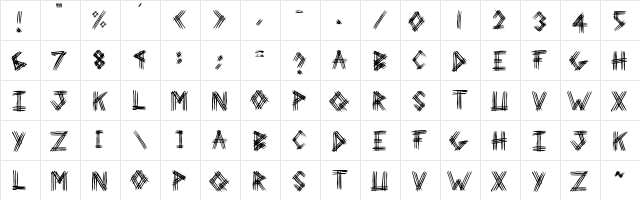
3 Prong Tree Regular Free Font
3 Prong Tree Regular
Design Context for 3 Prong Tree
3 Prong Tree is a composed and adaptable typeface that performs quietly and consistently across a wide range of design contexts.
Pro Tip: Use 3 Prong Tree in both headline and body roles to test its range before committing to a single application.